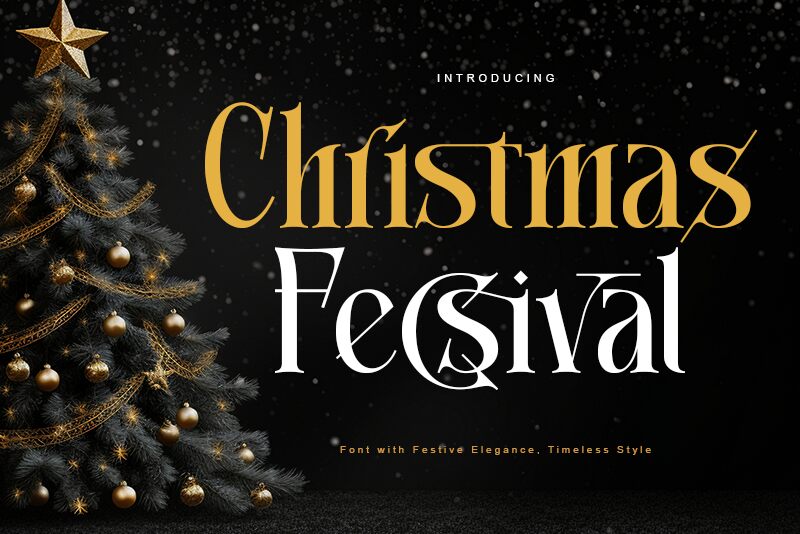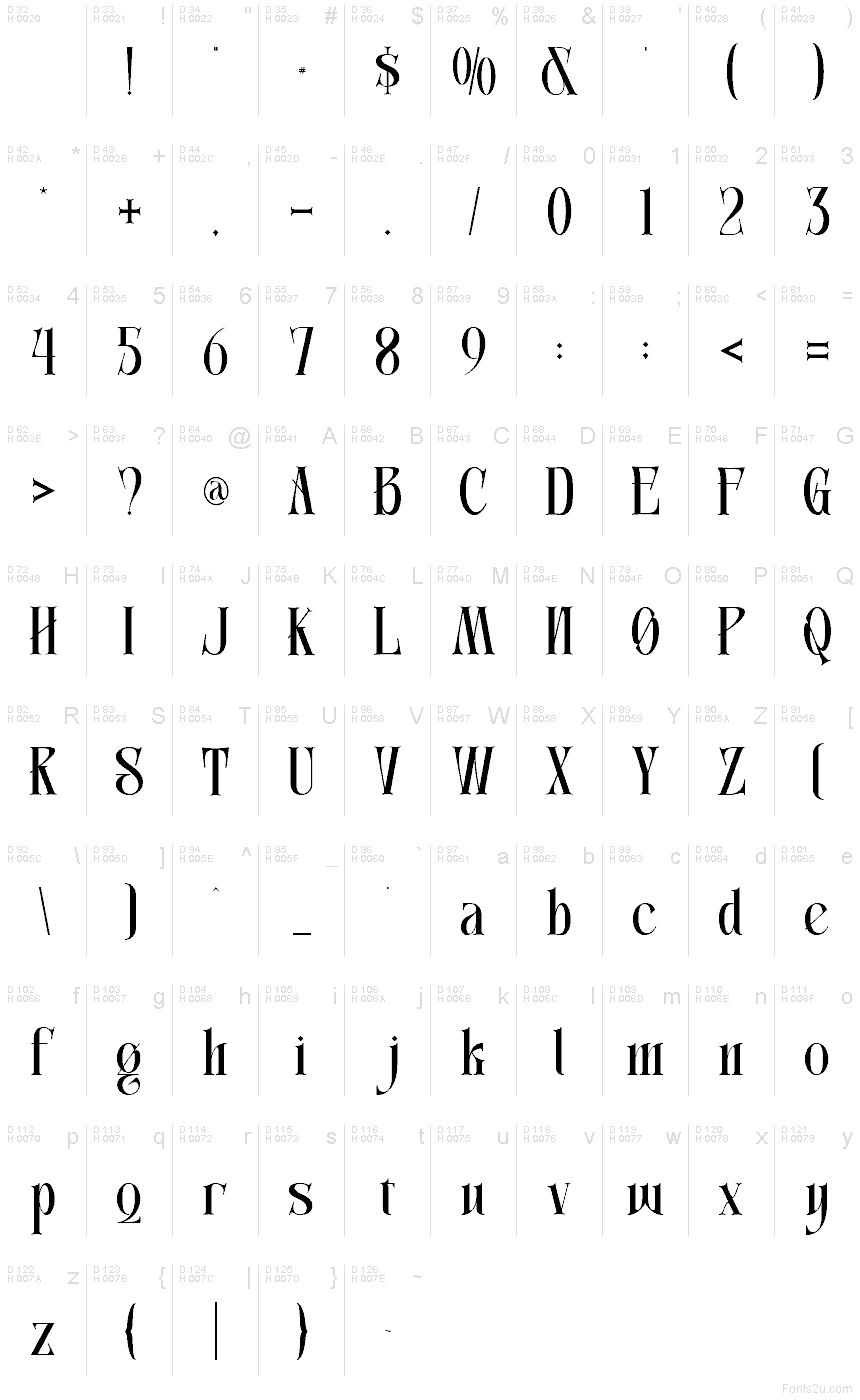
Christmas Fecsival font by Letterara is a free holiday christmas typeface that wraps your words in that cozy, storybook kind of magic. Tall, slender letterforms stretch upward like candle flames, while the delicate, flared serifs feel a bit like ribbons curling at the edges of a gift tag. There’s a gentle, old-world elegance to the rhythm of the text, giving even short phrases a graceful, festive flow that feels both nostalgic and refined.
Using Christmas Fecsival, your titles and greetings instantly read as “holiday” without needing extra graphics. This free font shines on Christmas cards, party invitations, gift tags, seasonal menus, product labels, and Pinterest-friendly quote graphics. It works beautifully at larger sizes where its slim shapes can breathe, and pairs nicely with a clean sans serif for body copy to keep your layouts readable and polished.